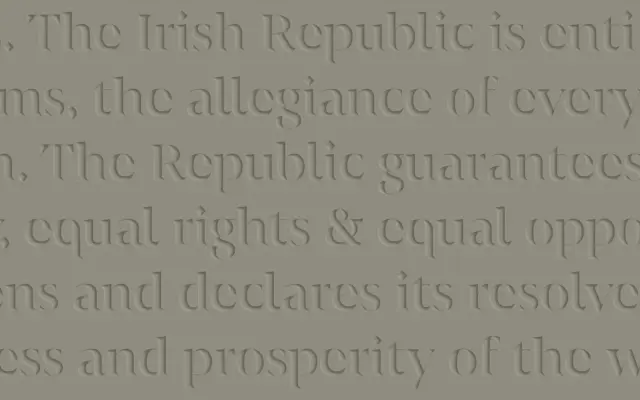
F37 Wicklow
A flared incised serif inspired by Michael Biggs' carved letters on Dublin's Arbour Hill Memorial, with twelve Latin styles and an Arabic companion.
A serif by F37 drawn from Irish sculptor Michael Biggs' carved letters on the Arbour Hill Memorial in Dublin. Twelve Latin styles span six weights from Light to Black with matching italics, with F37 Wicklow Arabic extending the family. The terminals carry the cut-stone flare of the source inscriptions, making it a strong fit for heritage, craft, hospitality and cultural identity work that wants a contemporary serif with hand-cut roots. Pairs with F37 Wicklow Stencil for signage variations and with F37 Blanka or F37 Neuro for clean grotesque support.
A flared, incised serif inspired by Irish sculptor Michael Biggs' letter carvings on the Arbour Hill Memorial in Dublin, with Latin and Arabic coverage and a companion stencil cut.